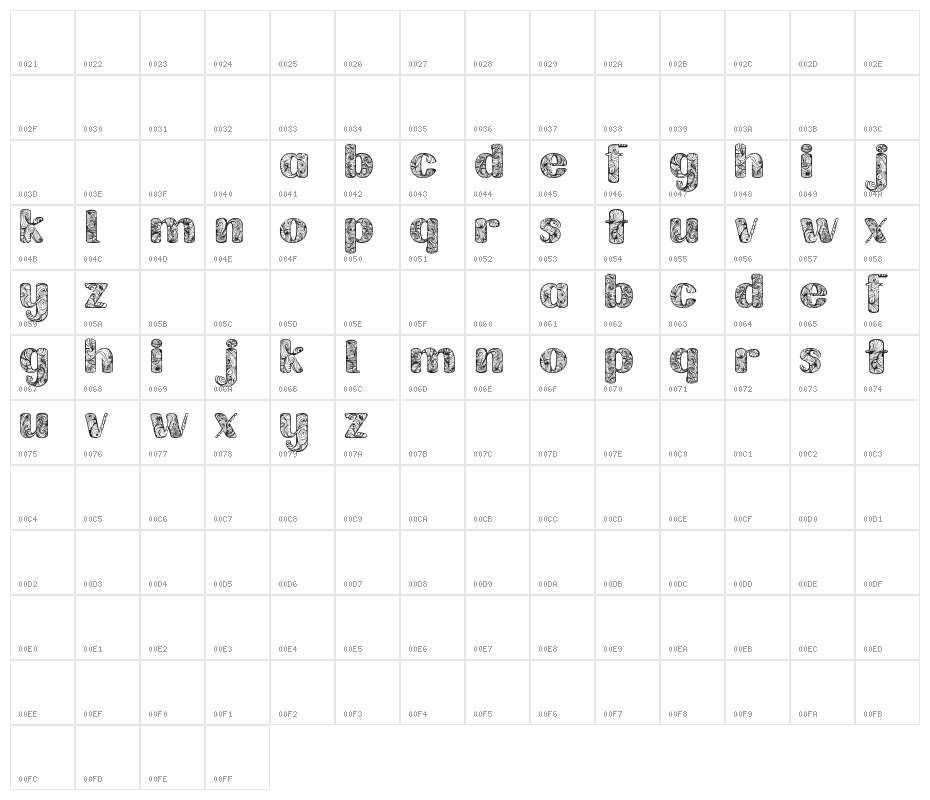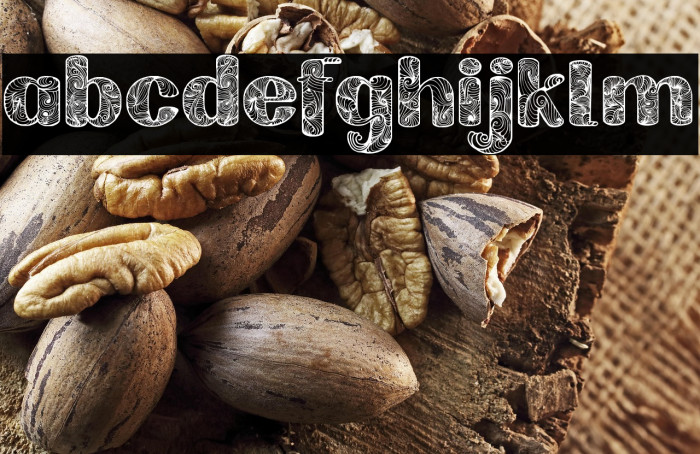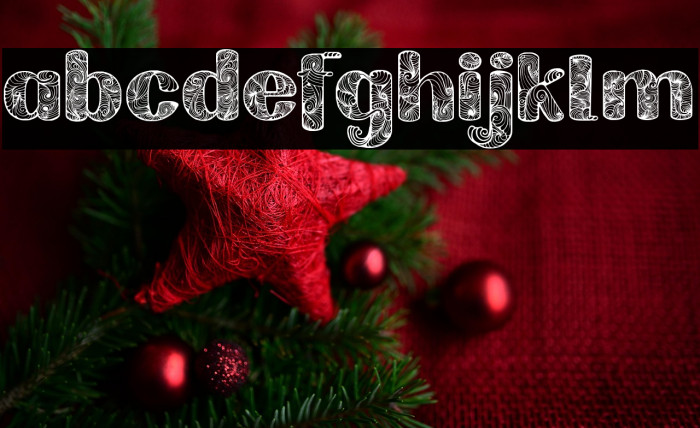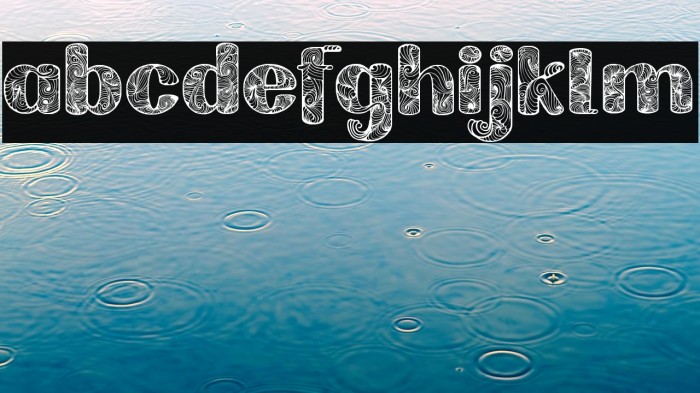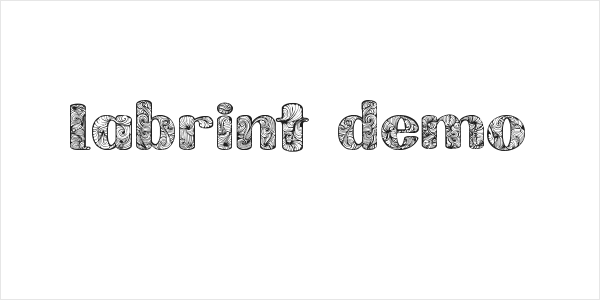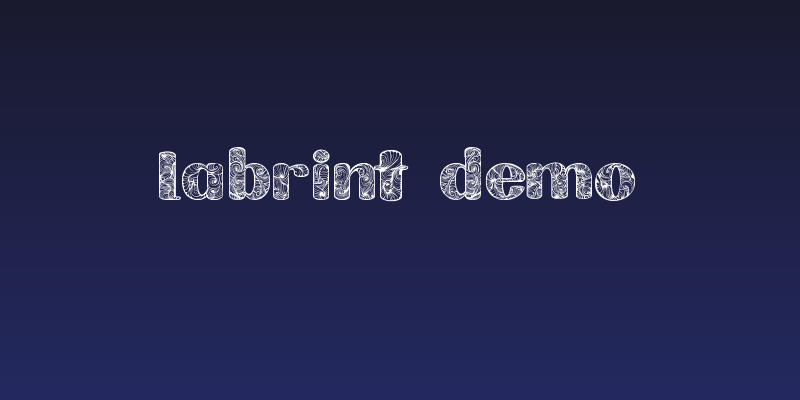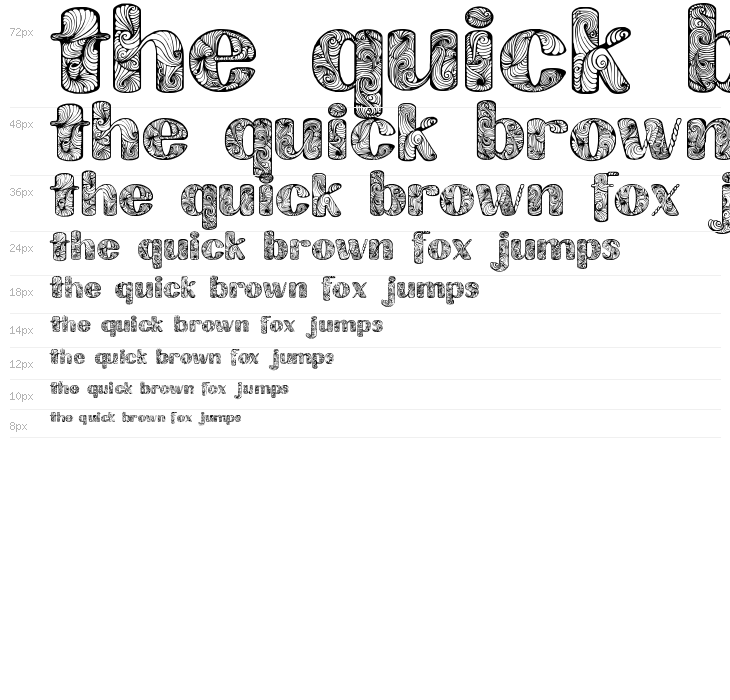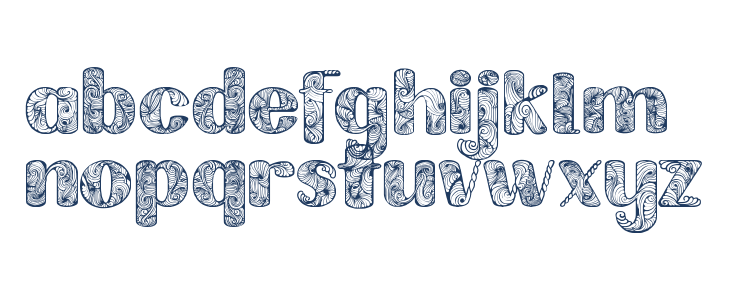
Labrint Demo Font
Labrint Demo Description
This font features an intricate and decorative design, with each character filled with swirling, paisley-like patterns. The letters are bold and rounded, giving them a playful yet sophisticated appearance. The detailed line work within each character adds a sense of depth and texture, making it stand out as a unique display font. The overall aesthetic is artistic and whimsical, suitable for creative projects that require a touch of elegance and flair.
| Use Case | Headlines, Logos, Artistic Projects |
| Proposed Projects | Ideal for artistic posters, invitations, branding for creative businesses, and decorative headings. |